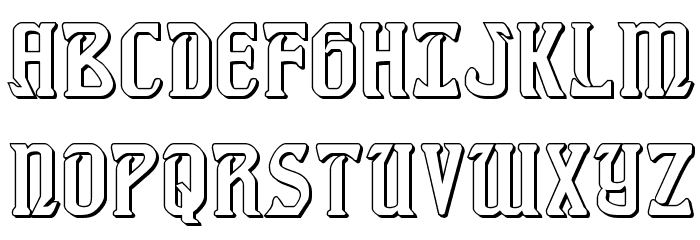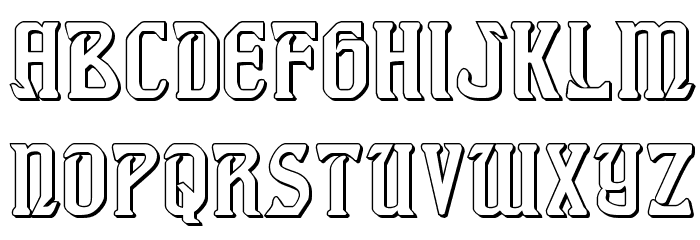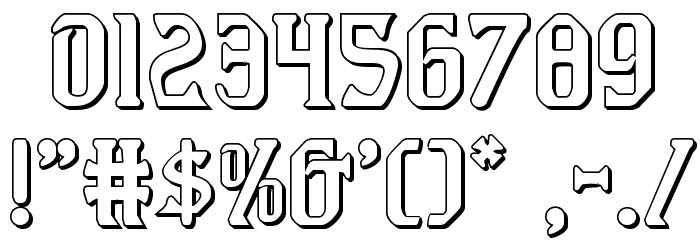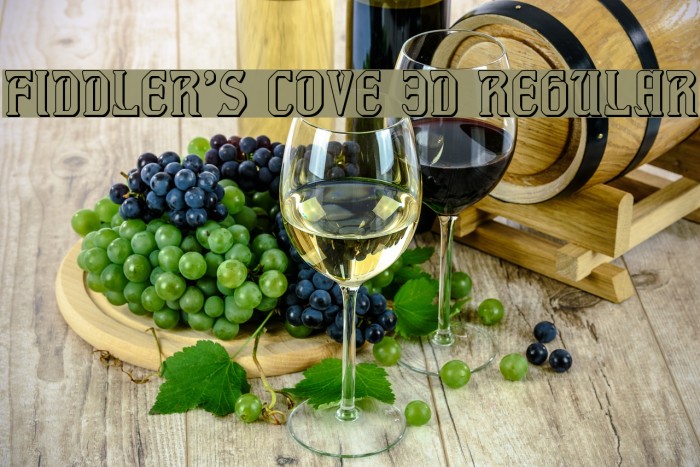
Fiddler's Cove 3D Regular Font
This font features a bold, three-dimensional style with a strong presence. The characters are outlined with a shadow effect, giving them a distinct, layered appearance. The uppercase letters are angular and geometric, with sharp edges and a consistent stroke width. The numerals and special characters follow the same design principles, maintaining uniformity across the set. This font is eye-catching and designed to stand out, making it ideal for impactful visual statements.
A bold, 3D font with angular, geometric characters and a shadow effect.
- Proposed Projects: Perfect for posters, logos, and headlines where a strong, impactful visual is needed.